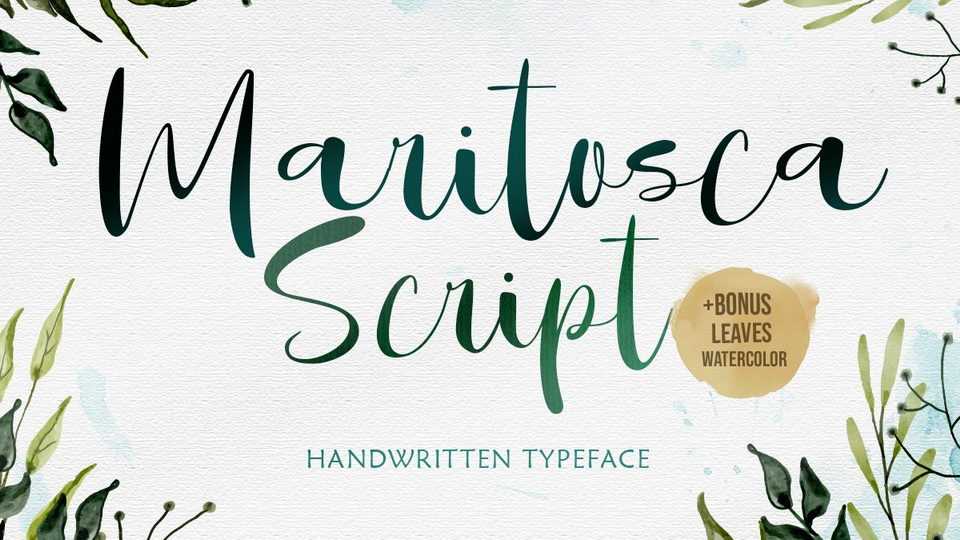
Download Maritosca Script font, an exquisite typeface, inspired by natural handwriting. Maritosca maintains its classy calligraphic influences while feeling contemporary and fresh.